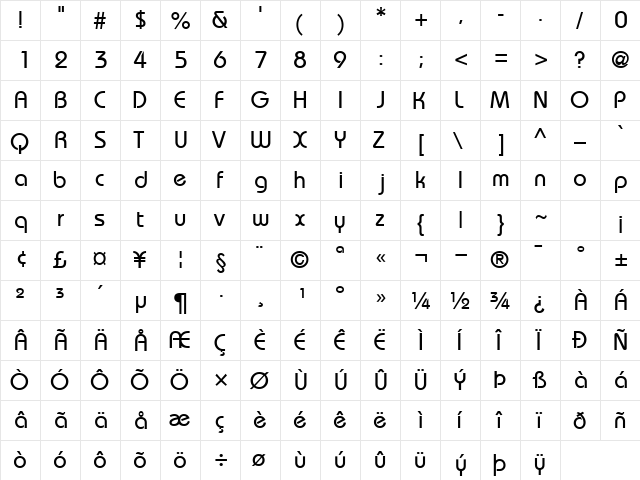
DynameSSK Regular
Design Context for DynameSSK Typeface
DynameSSK takes a measured approach to typography — its balanced proportions and neutral character make it a reliable workhorse for both digital and print work.